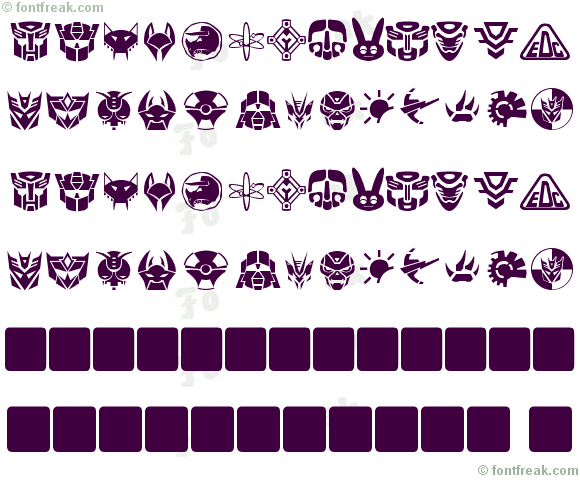
Transdings
About Transdings
Transdings, designed by Neale Davidson in 2011, is a unique dingbat font that captivates with its striking visual style. Characterized by a collection of intricate icons and symbols, this font offers a modern twist on traditional dingbats, making it an excellent choice for a variety of creative projects. The symbols boast a bold stroke weight with minimal contrast, ensuring clarity while maintaining visual impact. The spacing between the icons is meticulously crafted, allowing for seamless integration into any design.
This font is particularly well-suited for use cases such as branding for tech startups, graphic elements in video game designs, and decorative accents on posters or flyers. Its playful and contemporary aesthetic makes it ideal for children’s products or educational materials, where a fun yet professional touch is essential. Small business owners looking to enhance their promotional materials will find the Transdings font free download a valuable resource for creating unique logos or eye-catching signage.
Graphic designers and content creators will appreciate the versatility of Transdings, as it allows for endless customization in digital and print formats. Whether you need to add personality to a website or create themed invitations for special events, this font will elevate your designs and communicate your message effectively.
What sets the Transdings font apart is its ability to blend functionality with artistic expression. The carefully designed symbols are not just visually appealing but also serve a practical purpose, making them a functional choice for various applications. By incorporating Transdings into your projects, you gain access to a library of unique icons that can enhance your creative narrative and engage your audience in a fresh and exciting way.